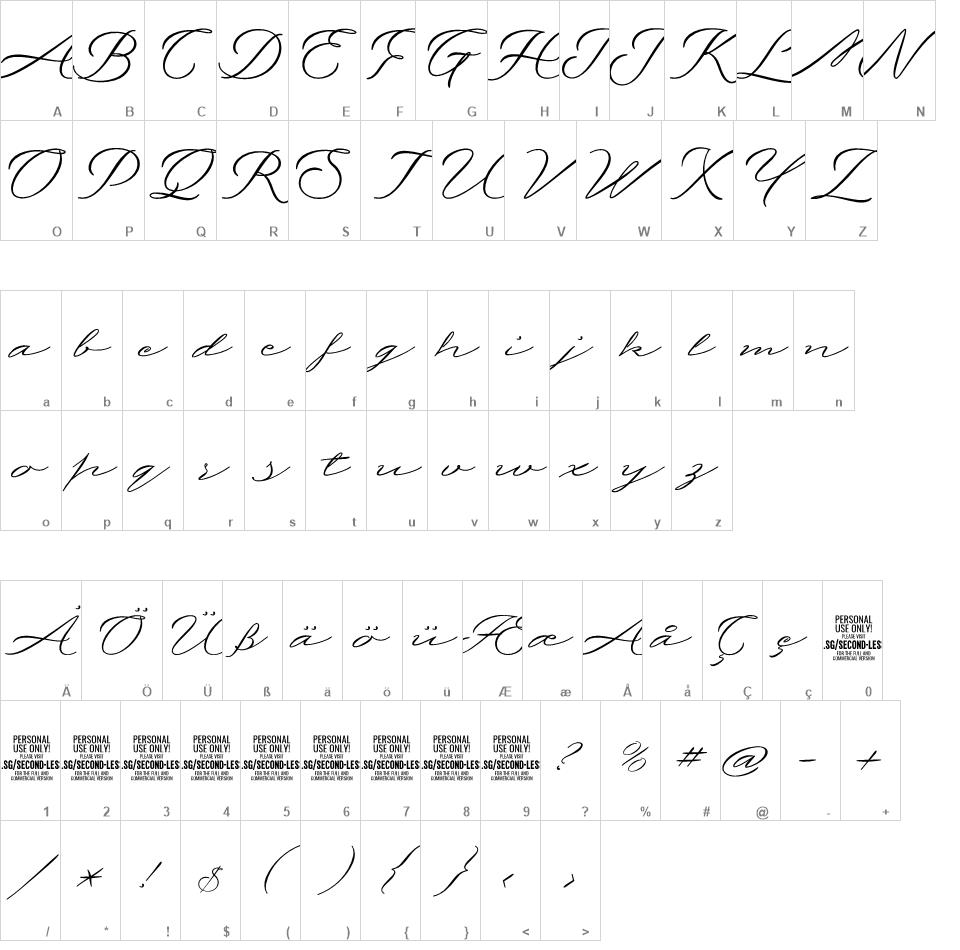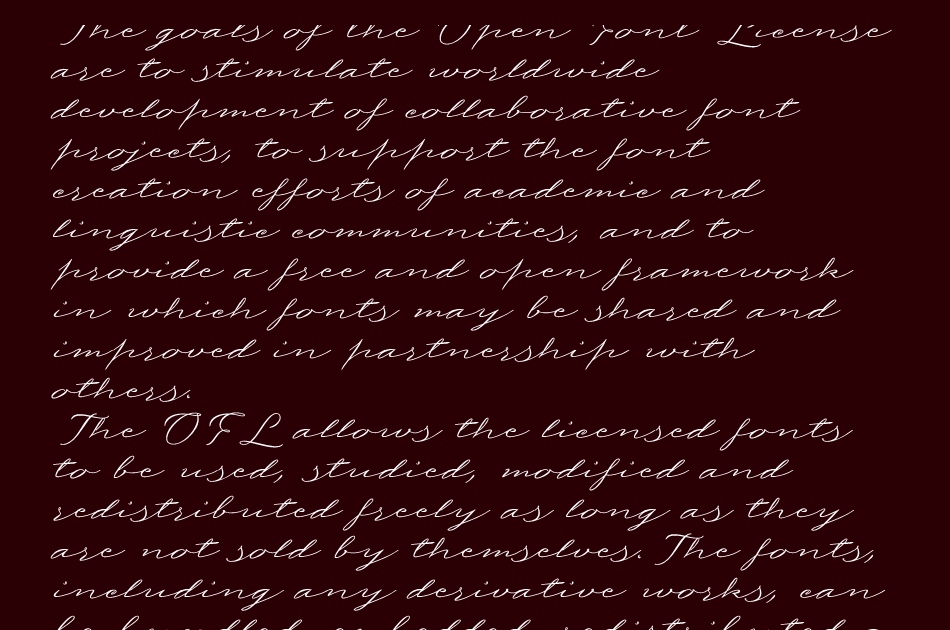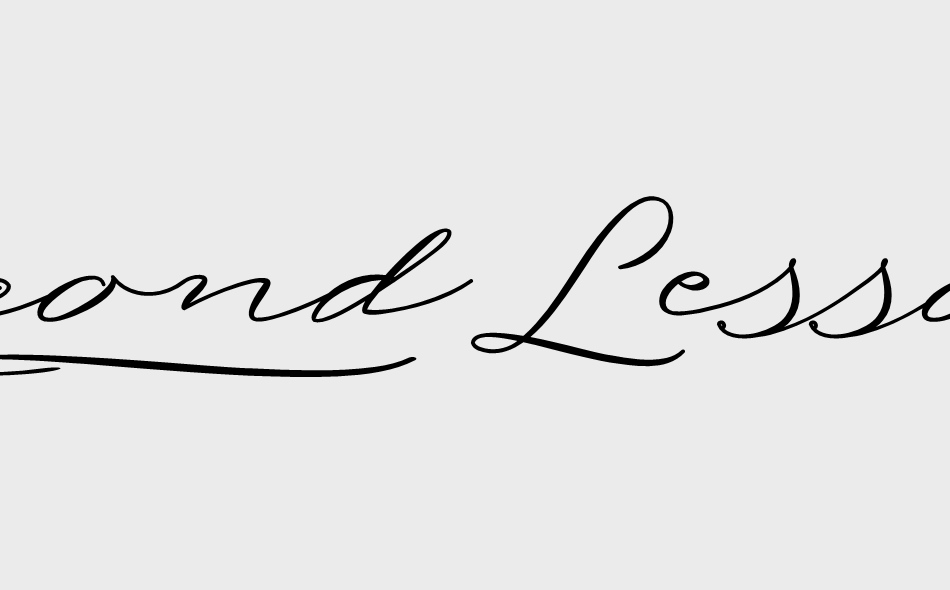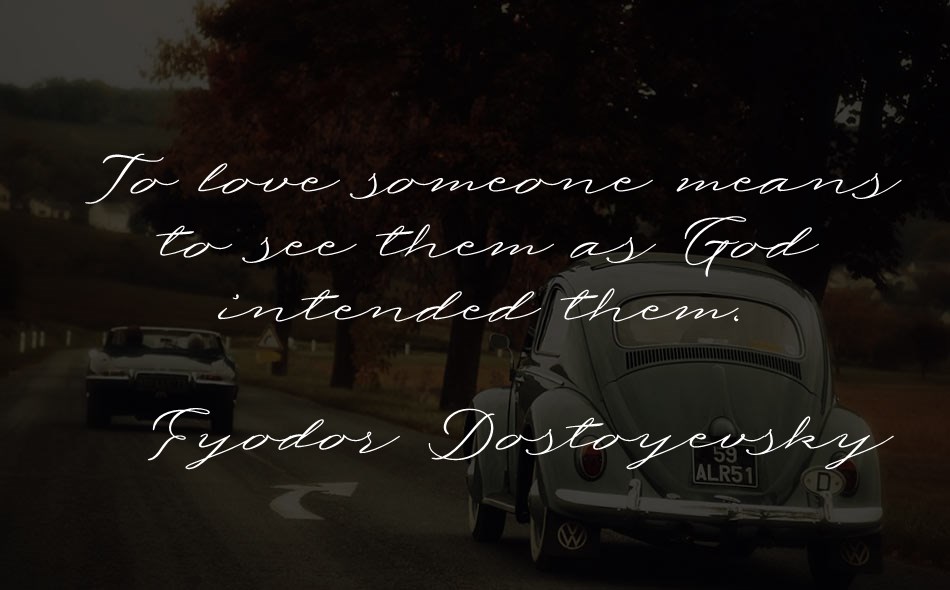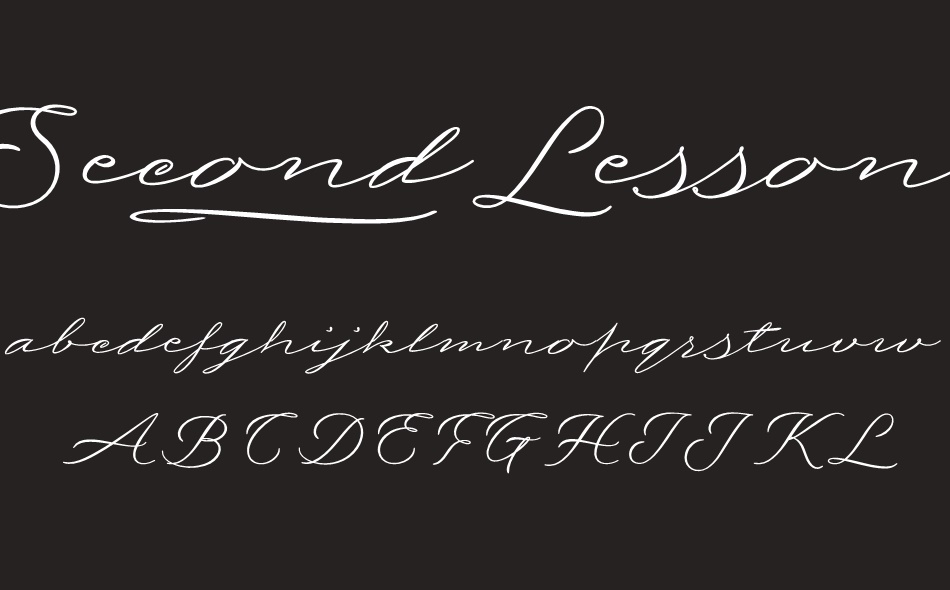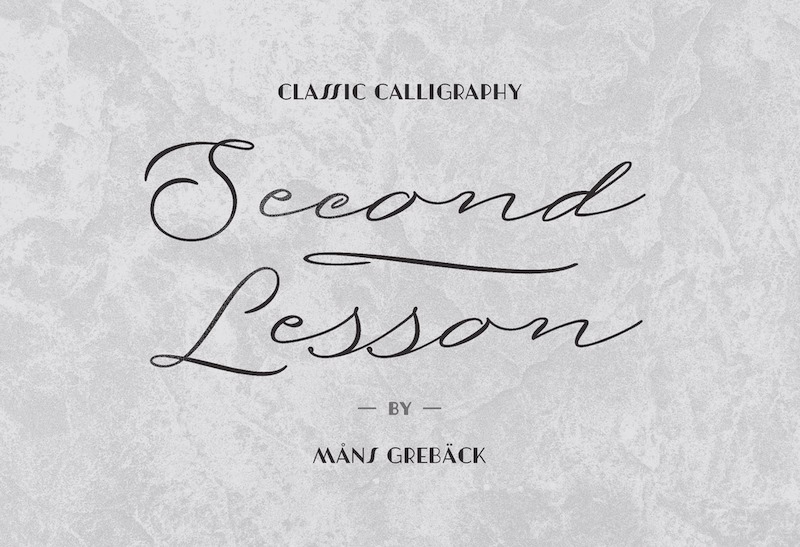
Second Lesson font
Use underscore _ to make an underline.
Example: Cu_te
Use multiple underscores to make other swashes.
Example: Hand________writing
Second Lesson is a classic handwriting typeface.
A calligraphic typeface family, Second Lesson follows the flowing and traditional handwritten typography taught at school.
The script lettering is provided in styles Regular and Bold, and consists of over 1000 glyphs and support all Latin based languages as well as Russian, Bulgarian and other Cyrillic languages.
Drawn and created by Mans Greback in 2021, this lettering has a slanted style and a beautiful personality.
The font is built with advanced OpenType functionality and has a guaranteed top-notch quality, containing stylistic and contextual alternates, ligatures and more features; all to give you full control and customizability. It has extensive lingual support, covering all Latin-based languages, from North Europe to South Africa, from America to South-East Asia. It also supports Cyrillic. It contains all characters and symbols you'll ever need, including all punctuation and numbers.